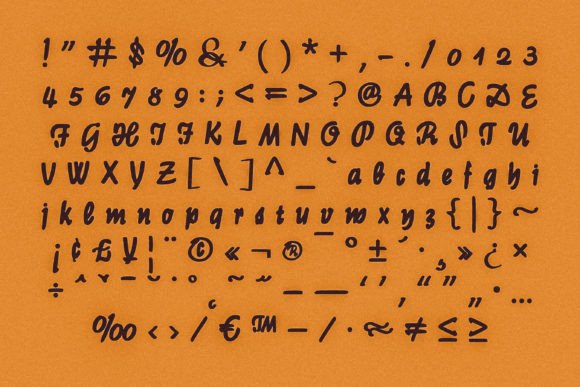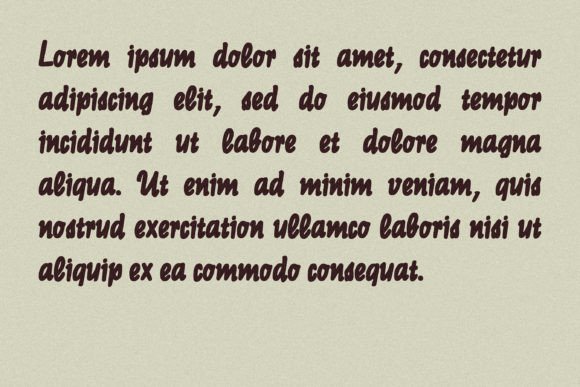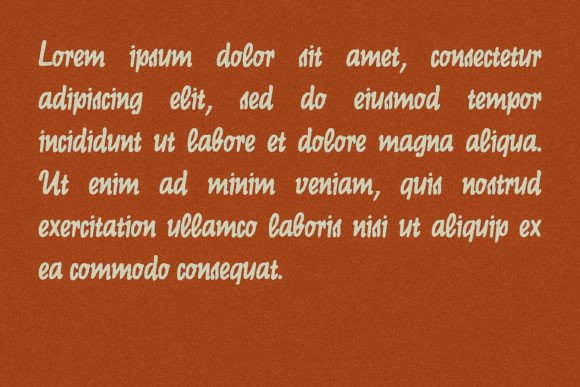
Beverly Hills Font
About Beverly Hills Font
“Beverly Hills” is a handwritten brush script font that exudes a sense of casual elegance and charm. When you incorporate this font into your projects, you can do so with confidence, knowing that it has the potential to generate amazing outcomes.
The appeal of “Beverly Hills” lies in its ability to infuse your projects with a touch of sophistication and a relaxed, handwritten style. Its brush script design adds a sense of artistic flair and elegance to a variety of creative endeavors.
Whether you’re working on branding, invitations, posters, quotes, social media graphics, logos, or any project that calls for a handwritten and stylish touch, “Beverly Hills” is the typeface that can bring your ideas to life.
In the world of design, creating an impression of elegance and artistry is essential for certain projects, and “Beverly Hills” excels in this regard. It ensures that your projects not only look visually appealing but also convey a feeling of sophistication and creativity, leaving an amazing impact on your audience.
Embrace “Beverly Hills” with confidence and watch as it amazes you with its ability to add a touch of casual elegance and charm to your creative endeavors, generating outcomes that are visually captivating and artistically impressive.